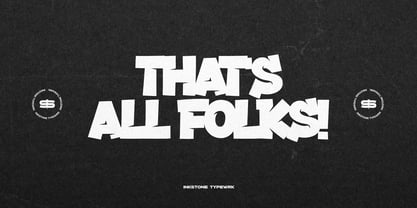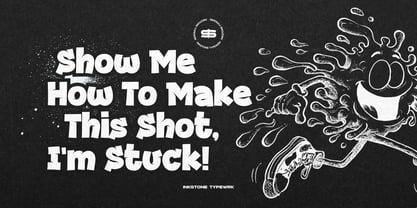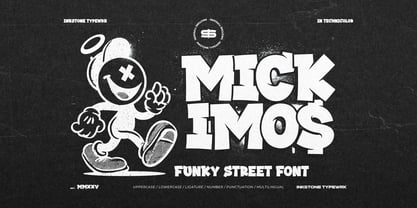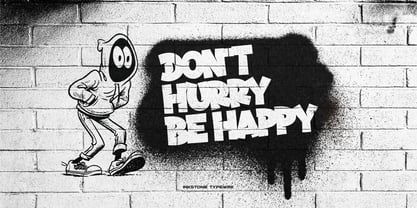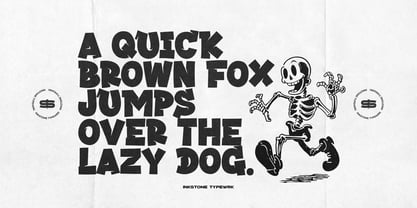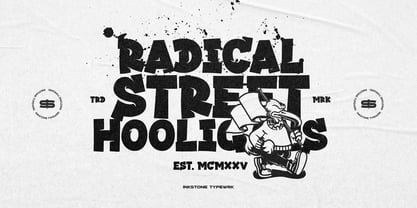
Mickimos
by Inkstone Typewrk
The Mickimos Font Family was designed by Andhika Pradana, Yono Asmadiputra and published by Inkstone Typewrk. Mickimos contains 1 styles. More about this family
Mickimos - Funky Street Font Bring the heat of the pavement to your designs with Mickimos, a funky street font that explodes with urban attitude and graffiti-inspired flair. This typeface oozes street style, blending rebel energy with cartoon stylish shapes for a bold and head-turning look. Handcrafted with raw hipster hype, Mickimos is built for brands and creatives who break the rules. From loud posters to edgy apparel, from YouTube thumbnails to event flyers, this font doesn’t whisper — it shouts in color, rhythm, and chaos. With a playful yet funky soul, Mickimos captures the vibe of skate culture, streetwear scenes, and graffiti walls. If your design needs that underground pulse and a blast of fun, this is your weapon of choice.